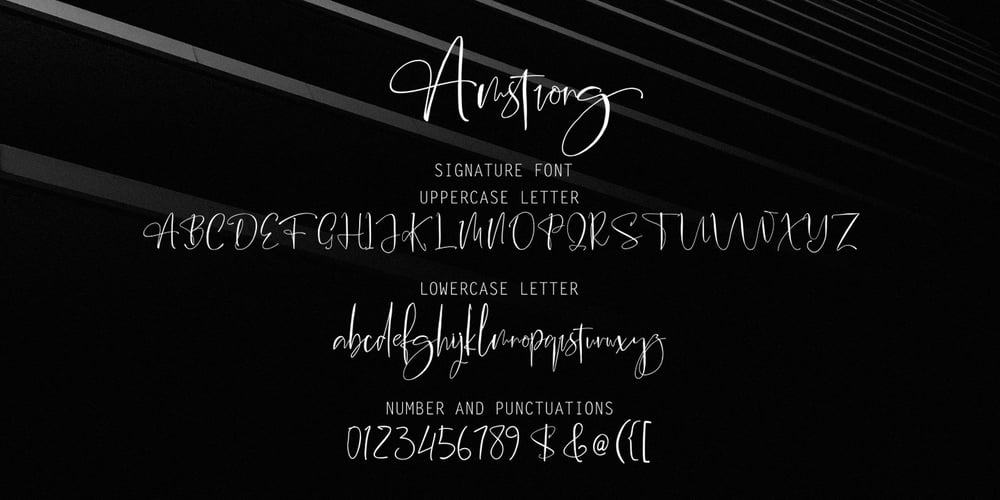
Amstrong Script Font Family was designed by Muhammad Fajar and published by Lucky Type. Amstrong Script contains 1 styles and family package options. Introducing Amstrong Signature Script font. Hi Designers, come again to complete your script font collection! This is a classic thin font with an italic style. This font comes with several modern swirly alternates that can make your work look elegant, sweet and perfect. With this style, this font will be suitable for logos, branding projects, product packaging, mugs, quotes, posters, shopping bags, logos, t-shirts, book covers, business cards, invitation cards, greeting cards, and all your other beautiful projects. Amstrong Signature Script font, includes various language support. You can use this font for your work very easily because it contains many features. Contains a complete set of upper and lowercase letters, punctuation, numbers and multilingual support. This font also includes several ligatures and alternative styles Set Stylistic For those of you who have software that is able to work OpenType (Corel Draw / Photoshop / Illustrator / InDesign). Files include: Amstrong Signature Script.OTF If you don’t have a program that supports OpenType features such as Adobe Illustrator and CorelDraw X Version, you can access all alternative glyphs using Font Book (Mac) or Character Map (Windows): How to access all alternative characters using Adobe Illustrator: https://www.youtube.com/watch?v=XzwjMkbB-wQ How to access all alternative characters, using Windows Character Map with Photoshop: https://www.youtube.com/watch?v=Go9vacoYmBw